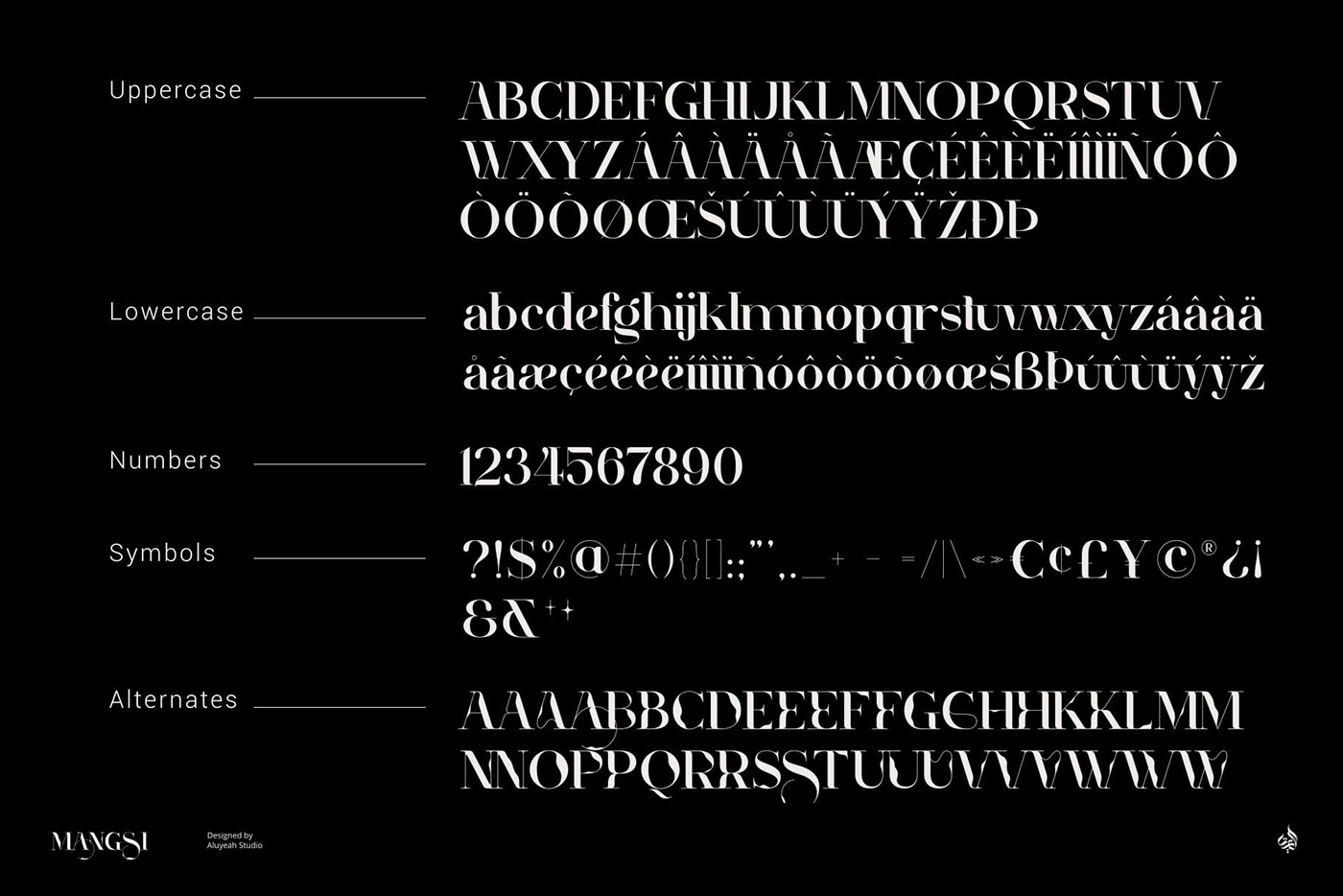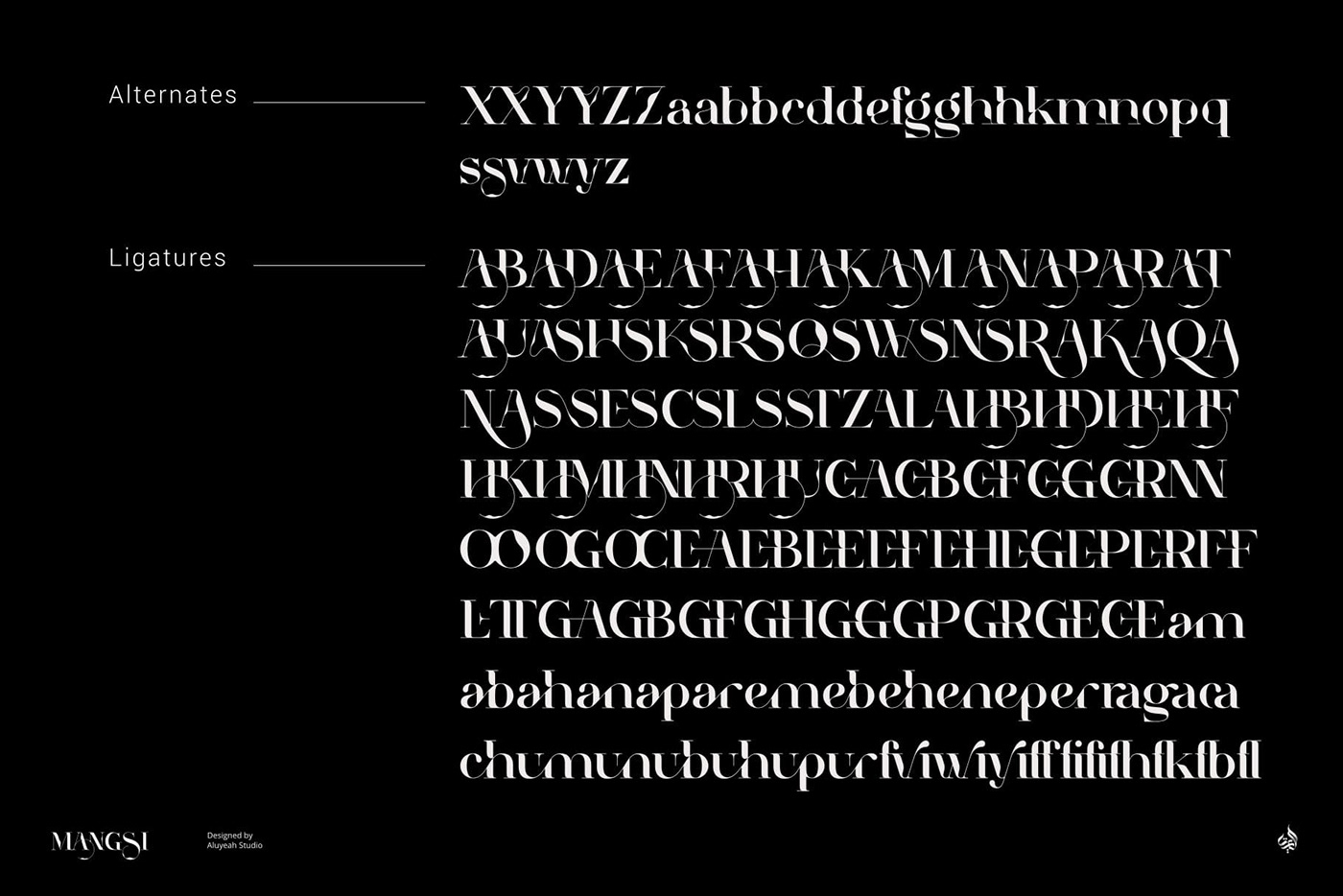
Mangsi
Mangsi, from Aluyeah Studio, is a modern inked display typeface that unites the beauty of the old lines with the clean modern lines. A simple, yet distinctive, elegant font that can be applied to many areas of design.
Coming with 170+ stunning and super easy to use alternates and ligatures. To get results like the preview just type M.3A.NGS.3I